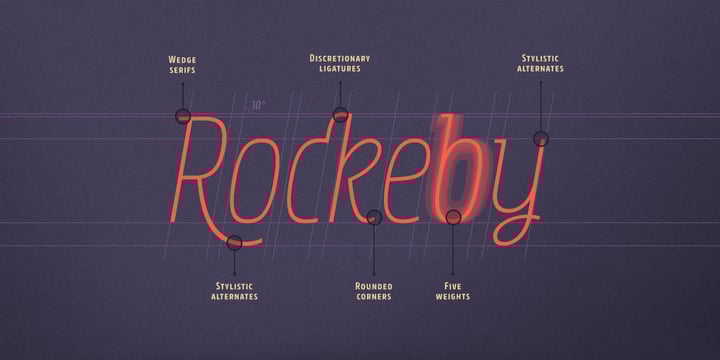
Rockeby SemiSerif
Rockeby SemiSerif by My Creative Land
Rockeby SemiSerif Font Family was designed by published by My Creative Land. Rockeby SemiSerif contains 14 styles and family package options. More about this family
About Rockeby SemiSerif Font Family
Rockeby SemiSerif is a font family that joins a well known collection - Rockeby Typography Toolbox. With 14 fonts included, it can be used for any sort of design project including but not limited to branding, websites, brochures, greeting cards etc. Rockeby SemiSerif Rough has a unique feature - the grunge texture that is applied not only to the letters but to the surrounding space as well. You can successfully mix and match all 50 fonts within Rockeby Typography Toolbox to get your design a stylish look.
“I’m trying to create not just a set of lines that form letters, but to create a font that will have a story behind it,” Elena Genova says, “a font that will be unique and one that will help to add some character into the designs in which it is used.” Located in Edinburgh, UK, Elena has always been interested in handwriting. “It all started in school,” she says, “I always paid attention to classmates’ handwriting, often imitating, and sometimes trying to improve, the ones that appealed to me the most.” In 2014, Elena found herself at a point in her design career in which she could finally start to explore lettering and calligraphy, and since then, she has made it her primary focus. Her handwritten appeal has seen amazing success since the very beginning. She reigned our Hot New Fonts list from the start with Evenfall, Veryberry Pro and La Veronique; all of which were released within her first month on MyFonts. Her lifelong passion for handwriting lends a very personal touch to each of her typefaces. “Beautiful handwriting is like a piece of art to me,” she says. “I admire it.”